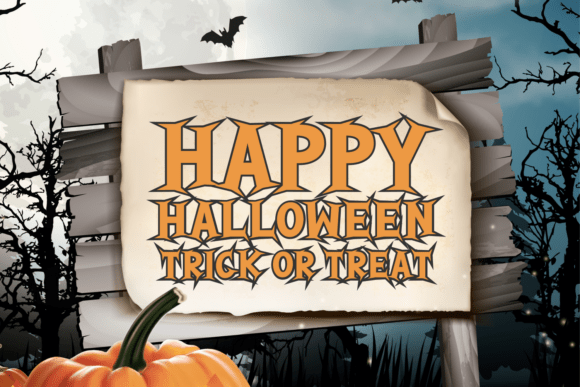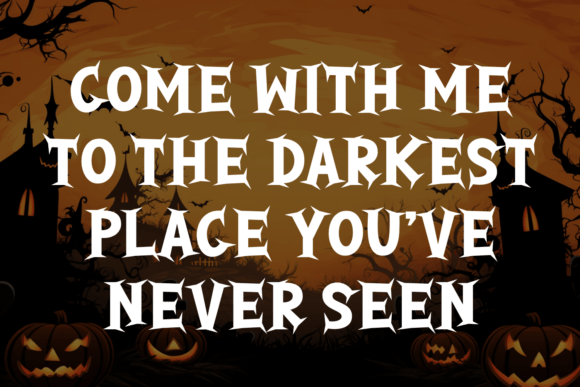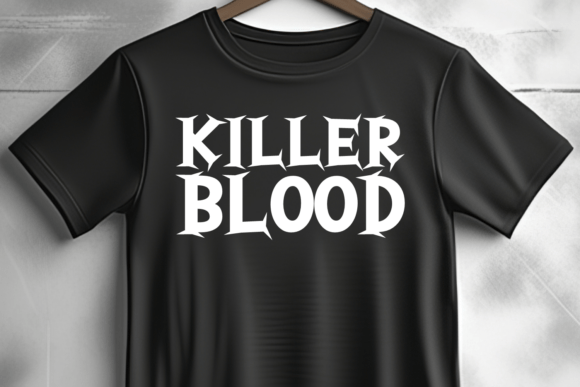
Unleash the Spooky Charm: Discover the Haunting Killer Font
Are you ready to add a dash of eerie allure to your designs? Look no further than the Haunting Killer display font, a captivating typeface that masterfully blends spooky charm with whimsical creativity. This font is designed to spark your imagination and inject an eye-catching expressiveness into your work, making it a must-have addition to any designer’s toolkit.
The Versatility of Haunting Killer
One of the standout features of Haunting Killer is its unfearingly versatile nature. This quirky font is tailor-made for a wide range of applications, from enhancing book covers and children’s literature to adding a charismatic zest to comics and amplifying the visual appeal of posters and packaging. Whether you’re a seasoned designer or a crafty DIY enthusiast, Haunting Killer is sure to impress.
Perfect for Whimsical and Spooky Designs
Haunting Killer’s unique blend of spooky charm and whimsical creativity makes it the perfect choice for designers who want to create projects that are both eerie and enchanting. The font’s quirky flair is sure to add a touch of magic to any design, from bold logotypes to exclusive merchandise. Imagine using Haunting Killer to create a hauntingly beautiful book cover for a children’s Halloween story, or to add a spooky charm to a comic book series.
Enhance Your Designs with Haunting Killer
So, how can you use Haunting Killer to elevate your designs? Here are just a few ideas to get you started:
- Book Covers: Add a touch of spooky charm to your book covers with Haunting Killer. Perfect for horror, mystery, and thriller genres, this font is sure to grab attention and draw readers in.
- Children’s Literature: Haunting Killer’s whimsical creativity makes it a great choice for children’s books, especially those with a spooky or supernatural theme.
- Comics and Graphic Novels: Add a charismatic zest to your comics and graphic novels with Haunting Killer. This font is sure to enhance the visual appeal of your characters and storylines.
- Posters and Packaging: Use Haunting Killer to create eye-catching posters and packaging that will stand out on store shelves.
- Logotypes and Merchandise: Create bold, eye-catching logotypes and merchandise with Haunting Killer. Perfect for designers who want to create unique and memorable branding.
Why Designers Love Haunting Killer
So, what makes Haunting Killer a must-have font for designers? Here are just a few reasons:
- Unique and Memorable: Haunting Killer is a one-of-a-kind font that’s sure to make your designs stand out.
- Versatile: This font can be used for a wide range of applications, from book covers to logotypes.
- High-Quality: This font is designed to deliver high-quality results, with crisp and clear lines that will look great in any design.
Get Ready to Dazzle with Haunting Killer
Are you ready to add a touch of spooky charm and whimsical creativity to your designs? With Haunting Killer, you can create projects that truly dazzle and stand out. Whether you’re a seasoned designer or a crafty DIY enthusiast, this font is sure to impress. So why wait? Add Haunting Killer to your design repertoire today and get ready to unleash your creativity!
In conclusion, Haunting Killer is a must-have font for designers who want to add a touch of spooky charm and whimsical creativity to their designs. With its unique blend of eerie allure and playful charm, this font is sure to spark imagination and inject an eye-catching expressiveness into any project. Whether you’re designing book covers, comics, posters, or merchandise, Haunting Killer is the perfect choice. So why wait? Get ready to dazzle with Haunting Killer and take your designs to the next level!